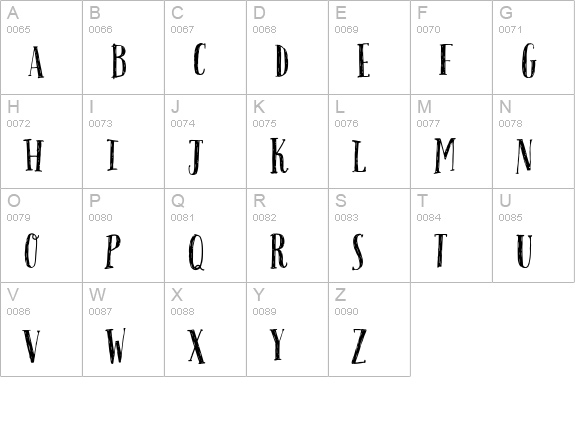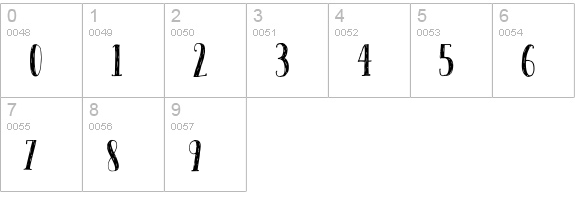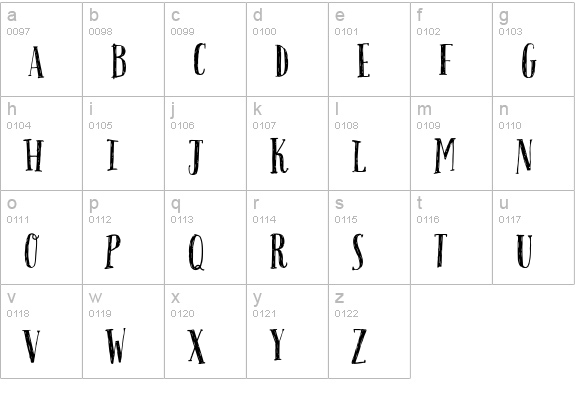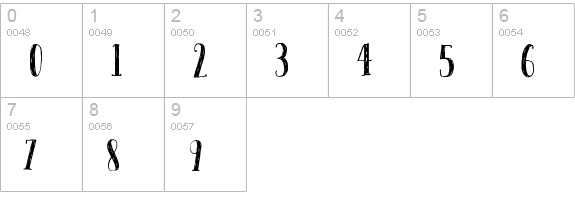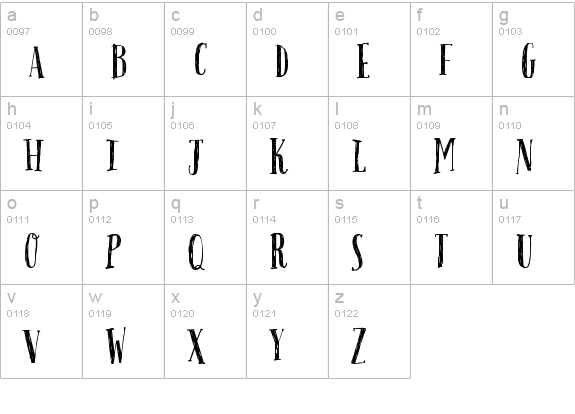
Pacific Northwest Rough Normal Medium is the standard, neutral variant in the Pacific typeface family \xE2\x80\x94 well suited to general body text, paragraphs, and standard typographic work.
The Pacific Northwest Rough Normal Medium font is a versatile and dynamic typeface that captures the rugged beauty of the Pacific Northwest region. With its rough edges and bold lines, this font exudes a sense of adventure and exploration. Perfect for outdoor-themed designs, travel blogs, and branding projects, this font adds a touch of authenticity and personality to any project. What makes this font even more appealing is that it is available for free download at FontsMarket.com. Whether you're a designer looking to add a unique touch to your work or a hobbyist wanting to experiment with different fonts, the Pacific Northwest Rough Normal Medium font is a great choice. Download it today and unleash your creativity with this captivating typeface.